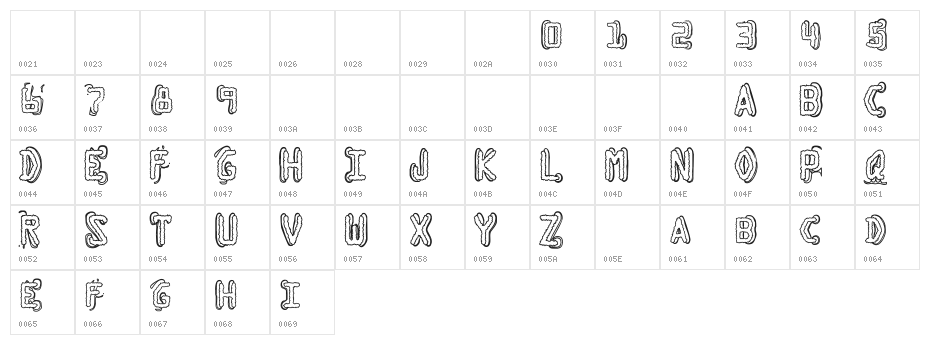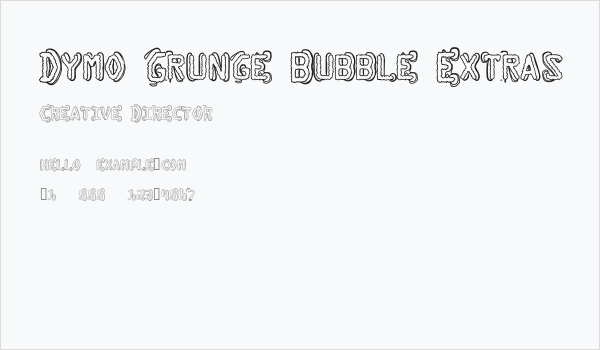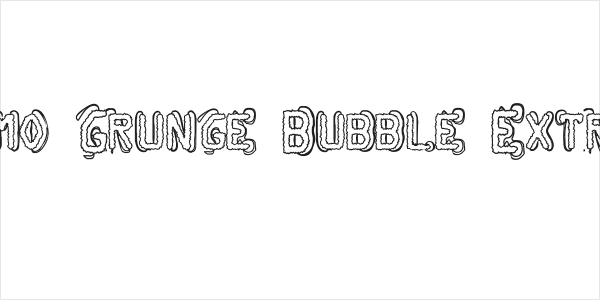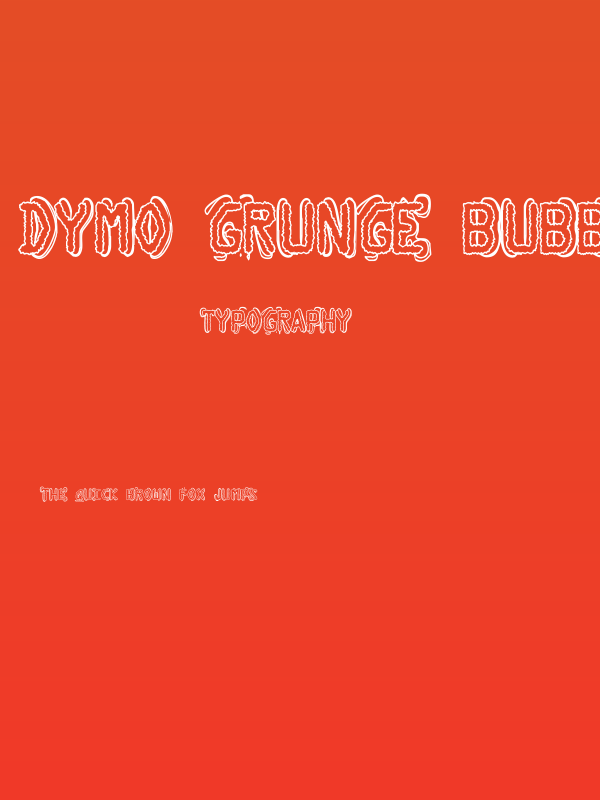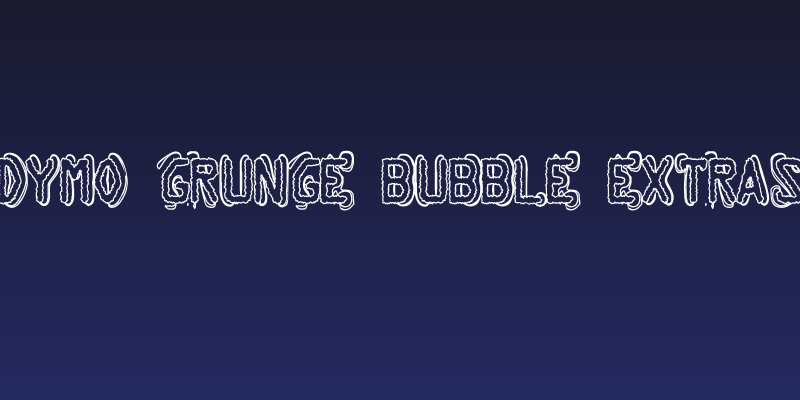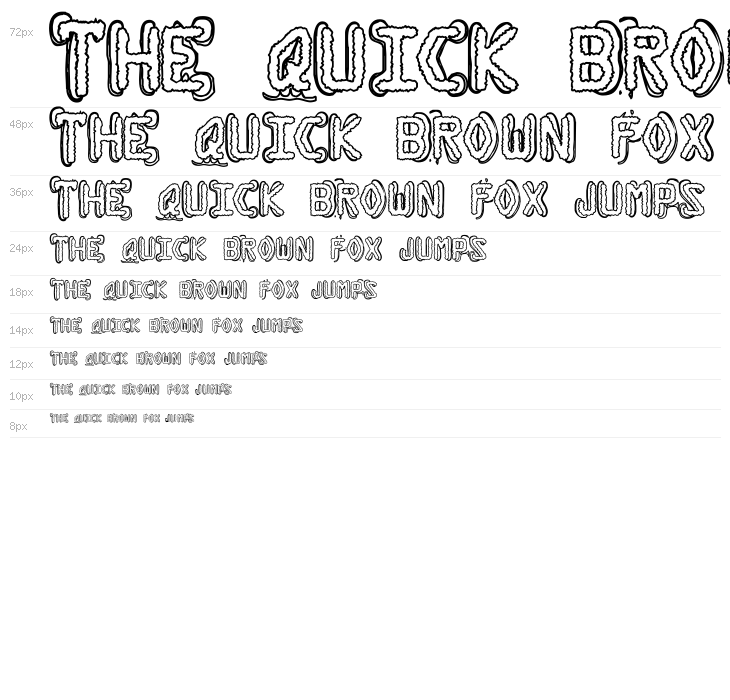
Dymo Grunge Bubble Extras Font
Dymo Grunge Bubble Extras Description
This font features a unique grunge style with bubble-like outlines that give it a playful and edgy appearance. Each character is surrounded by a thick, irregular border that adds a sense of depth and texture. The design is reminiscent of graffiti art, making it stand out with its bold and unconventional look. The uppercase and lowercase letters maintain a consistent style, while the numbers and special characters follow the same aesthetic, ensuring uniformity across all elements. This font is ideal for projects that require a creative and informal touch.
| Proposed Projects | Ideal for posters, album covers, streetwear branding, and creative digital art. |